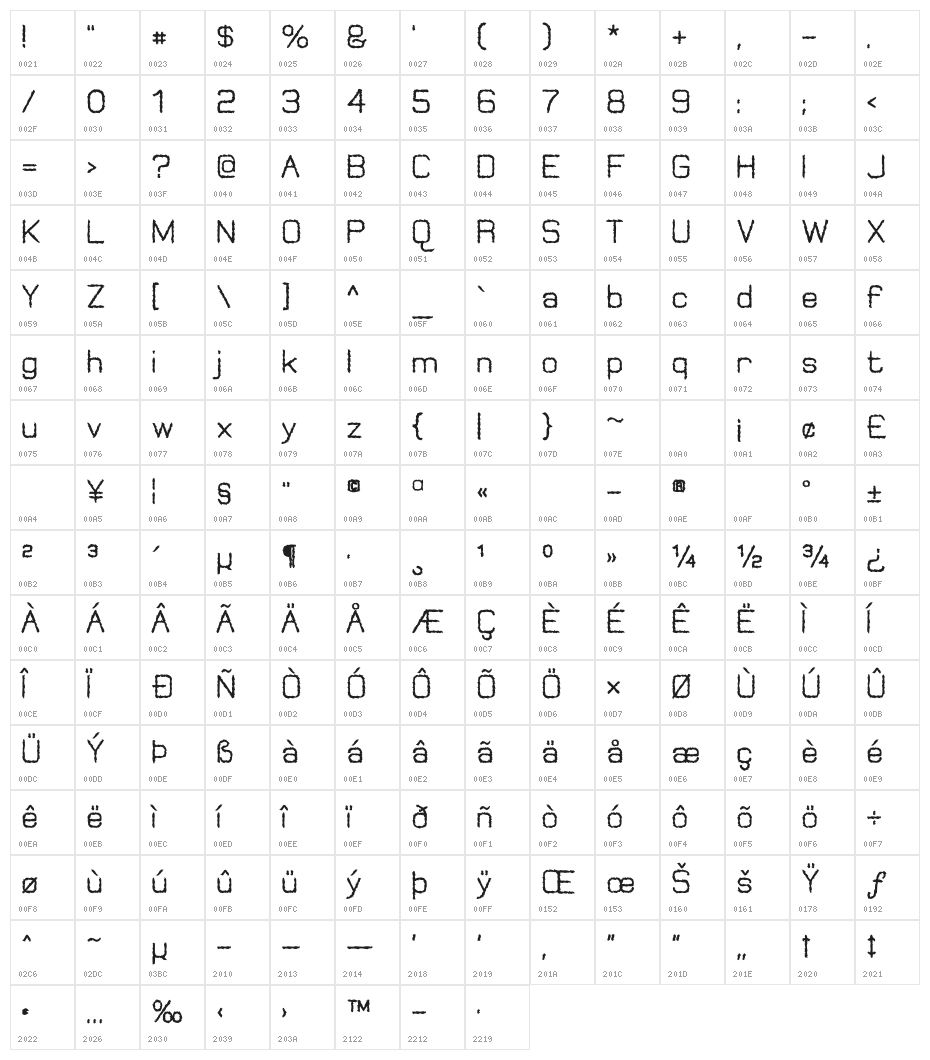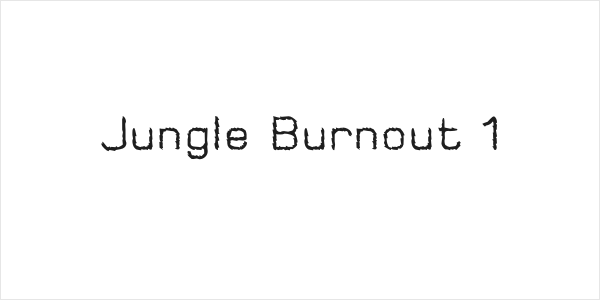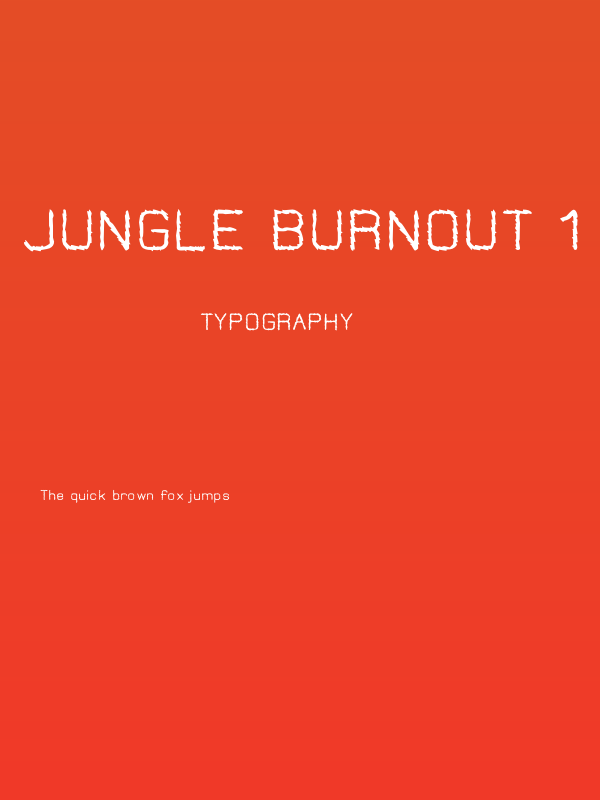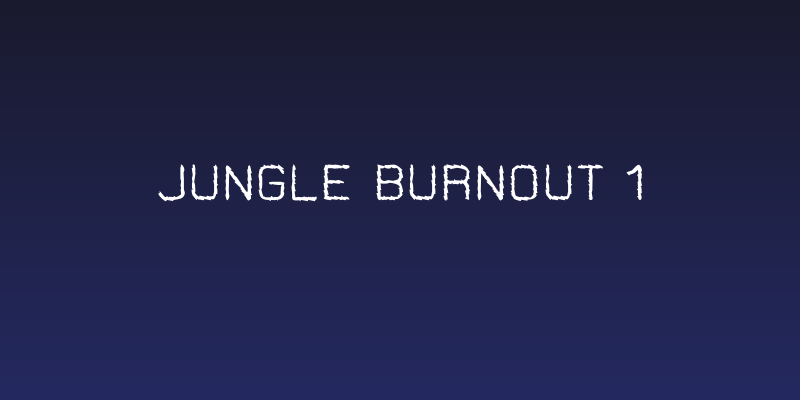
Jungle Burnout 1 Font
Jungle Burnout 1 Description
This font features a rugged, distressed appearance, reminiscent of natural textures like bark or rough stone. Each character is uniquely crafted with irregular edges, giving it an organic and raw feel. The uppercase and lowercase letters maintain a consistent height, while the numerals and special characters follow the same textured style. The overall design is bold and impactful, making it ideal for projects that require a strong, earthy aesthetic. Its unique style captures attention and adds a touch of wilderness to any design.
| Proposed Projects | Ideal for outdoor-themed posters, adventure branding, rustic packaging, and artistic projects that require a natural, rugged look. |